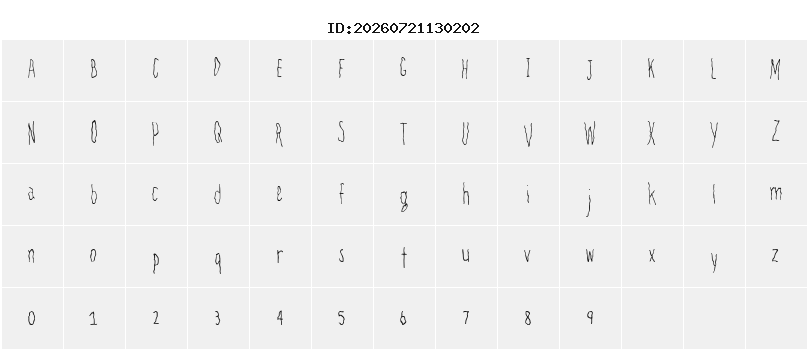
Filamental Preview
• Font Name: Filamental
• Full Font Name: Filamental
About Filamental.ttf
Filamental.ttf is a modern, elegant sans-serif font designed for ultimate readability and visual harmony. Perfect for branding, headlines, web design, and print materials.